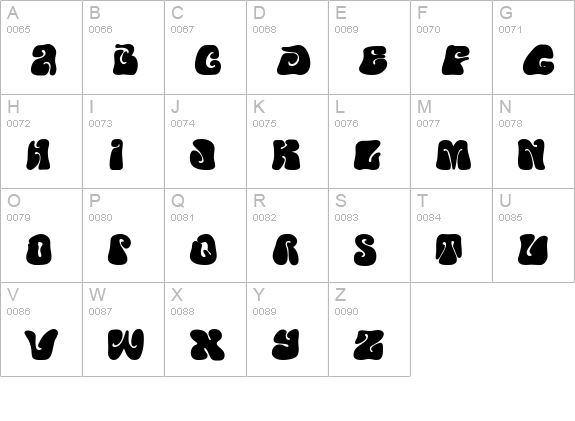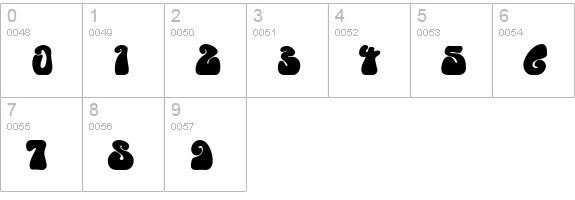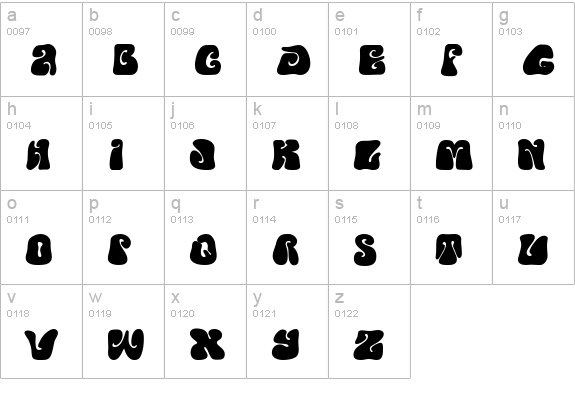
PFPsychedelia-Farout Font Details
The PFPsychedelia-Farout font is a mesmerizing display of creativity and innovation, perfect for adding a touch of psychedelic flair to your projects. With its intricate and unique design, this font is sure to make a statement and captivate your audience. The bold and vibrant letterforms exude a sense of freedom and individuality, making it ideal for projects that aim to stand out from the crowd. What's even better is that the PFPsychedelia-Farout font is available for free download at FontsMarket.com. This means you can easily access this stunning font and incorporate it into your designs without any cost. So go ahead and unleash your creativity with the PFPsychedelia-Farout font, and let your imagination run wild with its free-spirited charm.